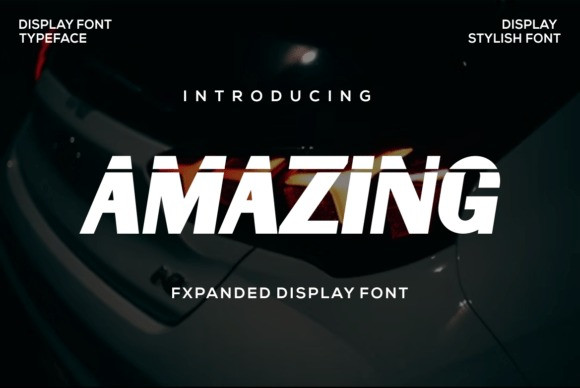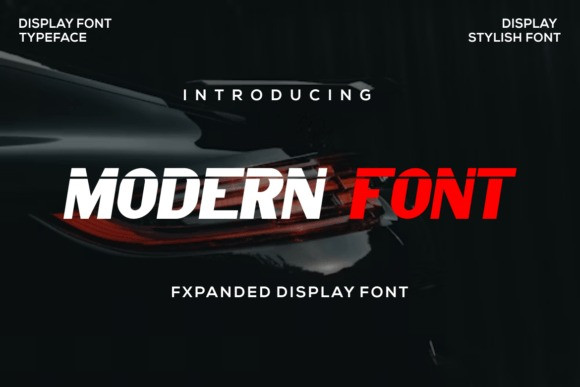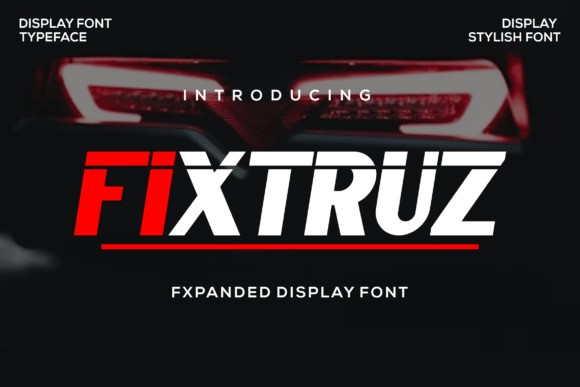
Fixtruz Font
Fixtruz Font, a bold and stylish expanded display sans-serif font. Designed with strong lines and elegant curves, Fixtruz is perfect for creating eye-catching titles, branding projects, posters, logos, editorial designs, and modern packaging.
Its unique expanded style gives your typography a professional yet artistic look, making it suitable for both digital and print use.